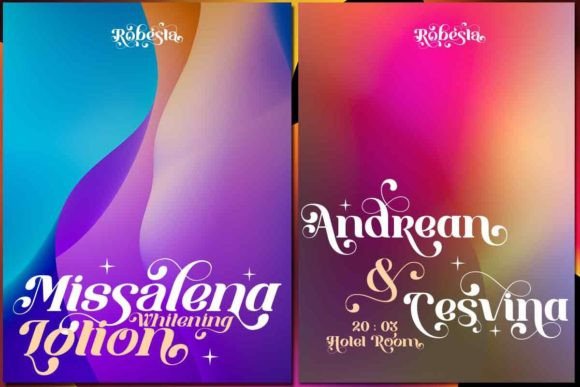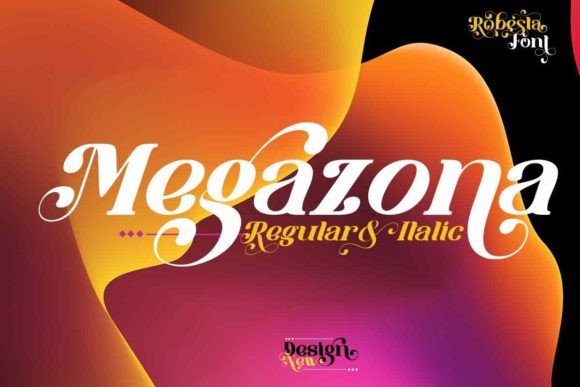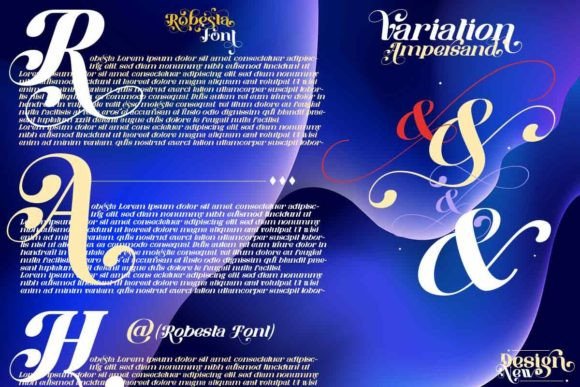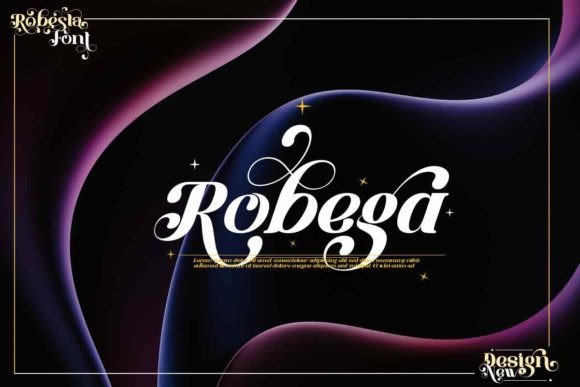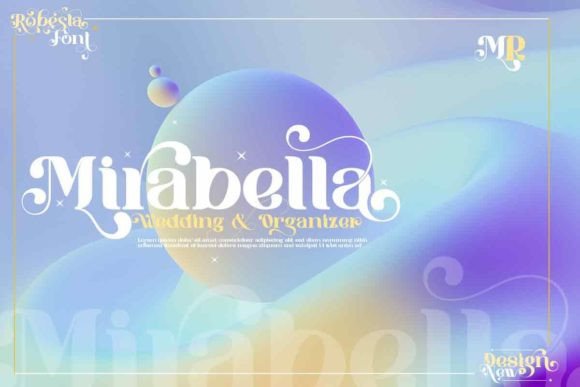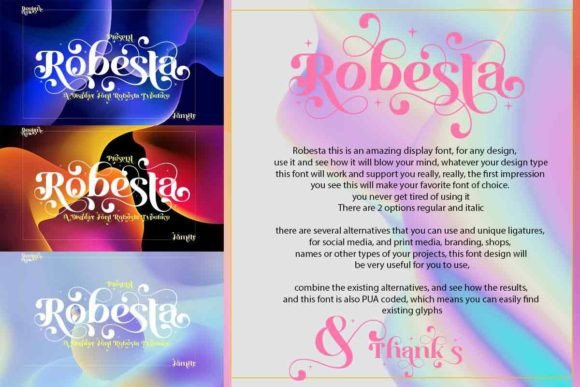
Introduction to Robesta Font Font
Fonts play a crucial role in design, and the Robesta Font font is a typeface that brings both character and versatility to any project. Whether you’re working on a branding project, a website, or a print design, the Robesta Font font offers a unique style that can elevate your work.
Robesta is an incredibly beautiful font, with a luxurious and elegant appearance, making this the font of your best choice, with several alternates that you can combine, as well as League which is your newest style, this font has been coded with PUA which means you can easily use automatic glyphs, Robesta is a font that emphasizes dashing and daring, making this font look very striking and classy branding style, and with the combination of italics that we include in it for your design choices to be more creative with this font.
Robesta is an incredibly beautiful font, with a luxurious and elegant appearance, making this the font of your best choice, with several alternates that you can combine, as well as League which is you
Key Features of Robesta Font Font
Why Choose Robesta Font Font?
The Robesta Font font is more than just a typeface – it’s a design tool that helps you communicate your message with style and clarity. Its unique character set and versatile design make it suitable for a wide range of applications, from elegant invitations to bold headlines.
With its carefully crafted letterforms and balanced proportions, the Robesta Font font ensures readability and visual appeal across all mediums.
What makes Robesta Font font special?
The Robesta Font font stands out with its unique design, exceptional readability, and versatility across various design applications.